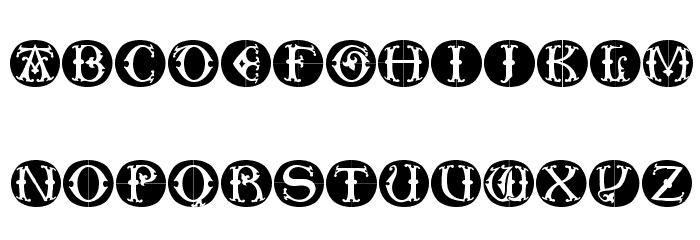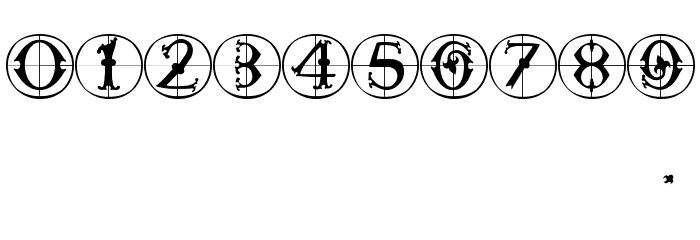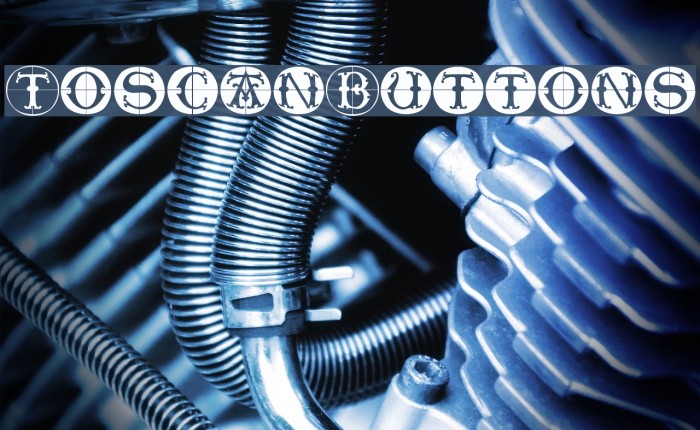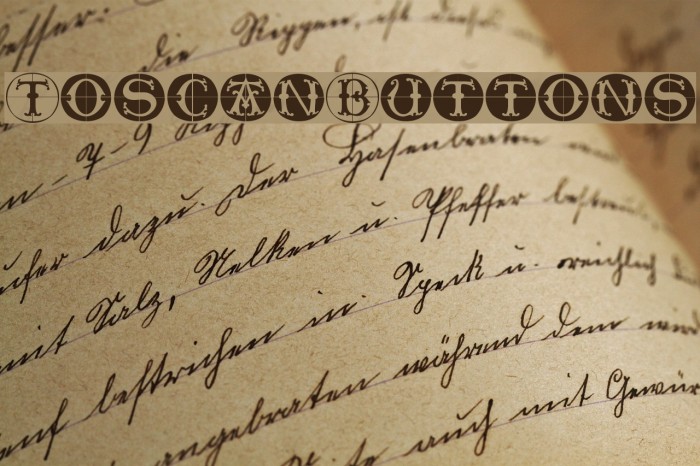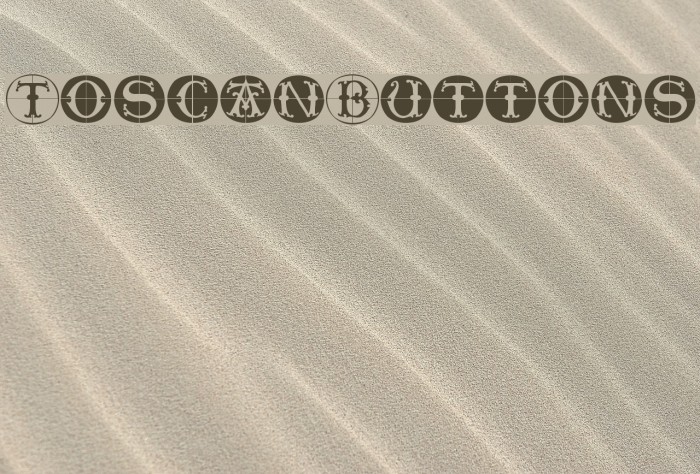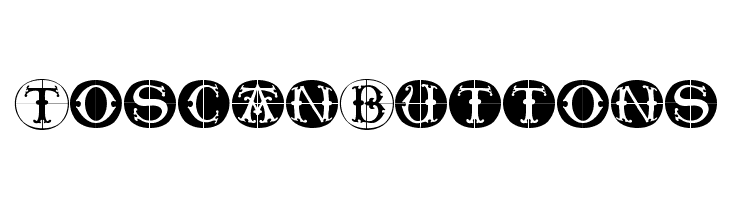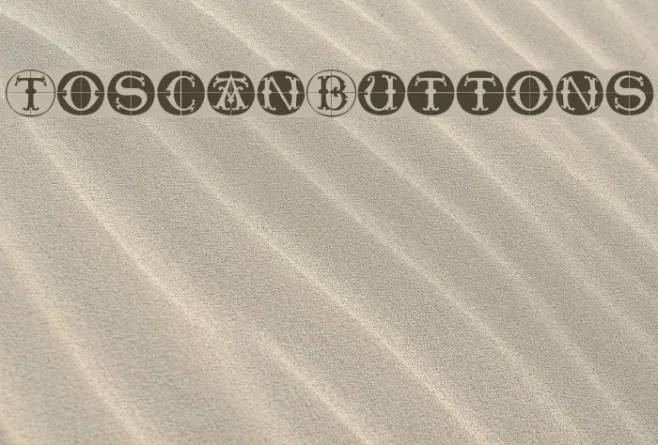
ToscanButtons Font
This unique font features characters enclosed within circular outlines, creating a button-like appearance. The letters are stylized with intricate, decorative elements that give them a vintage and slightly distressed look. The uppercase and lowercase letters maintain this consistent style, while the numbers also follow the same design principle. The font's distinctiveness lies in its ornamental flair, making it stand out for creative and artistic projects. The special characters are also designed with the same attention to detail, ensuring a cohesive look across all elements.
A decorative font with characters enclosed in circular outlines, featuring a vintage and artistic style.
- Proposed Projects: Ideal for vintage-themed designs, artistic posters, creative branding, and decorative invitations.
- Overall Style: Vintage, Decorative
- Use Case: Logos, Posters, Invitations